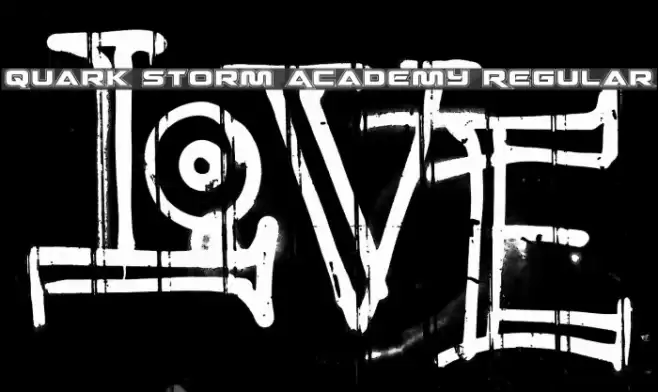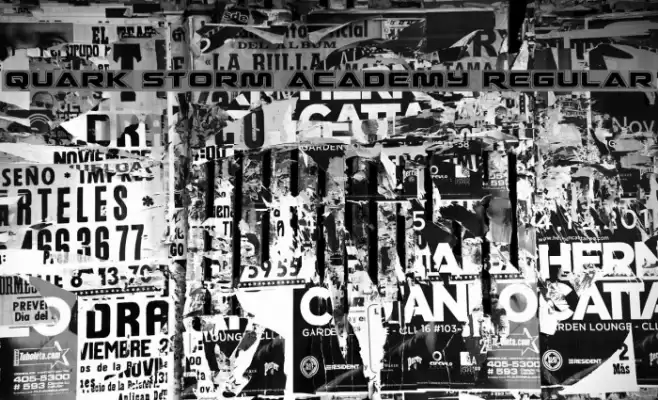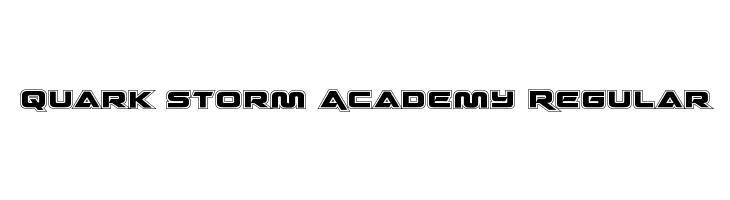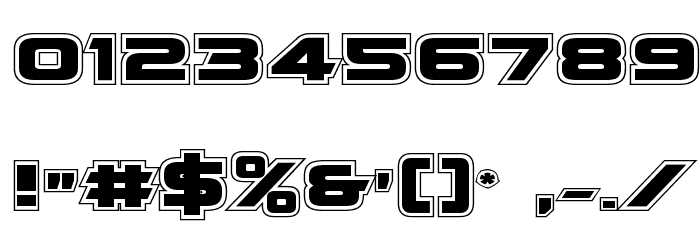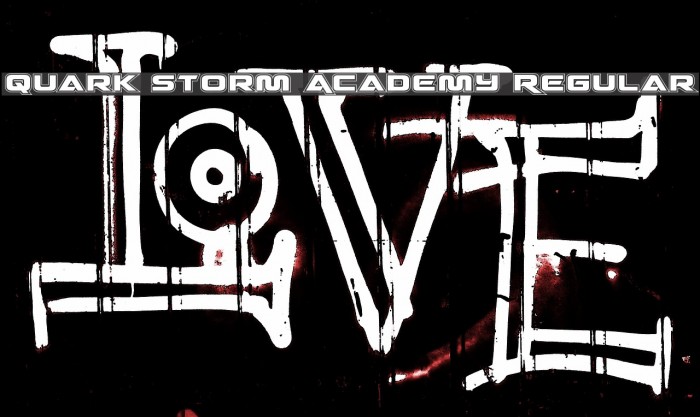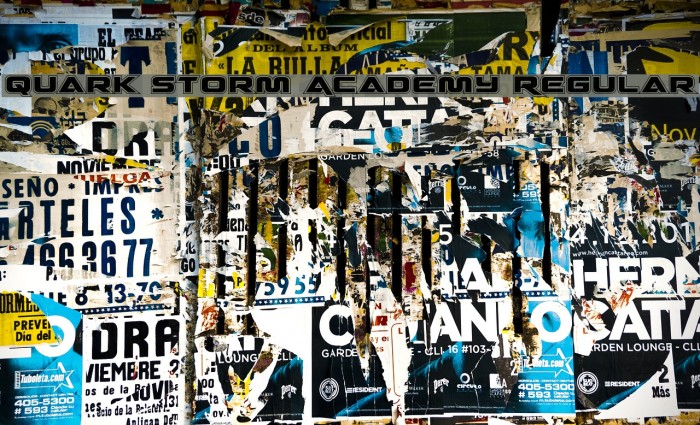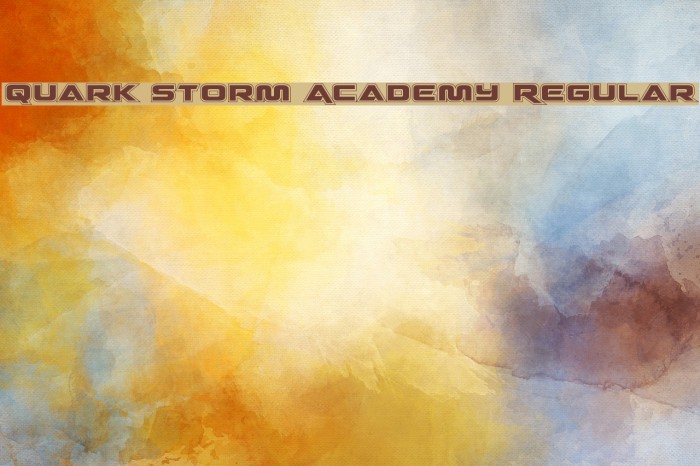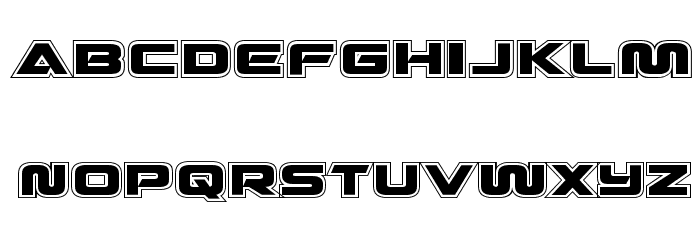
Quark Storm Academy Regular Font
Quark Storm Academy Regular Description
This font features a bold and futuristic design with a strong geometric influence. The characters are outlined with a thick border, giving them a three-dimensional appearance. The angular cuts and sharp edges add a dynamic and aggressive feel, making it stand out in any design. The uppercase letters are uniform in height, while the numbers and special characters maintain the same bold style, ensuring consistency across all text elements. This font is perfect for projects that require a modern and impactful look.
A bold, futuristic font with geometric and angular design elements from Uncategorized fonts.
- Proposed Projects: Ideal for sci-fi themed posters, video game titles, tech branding, and sports team logos.